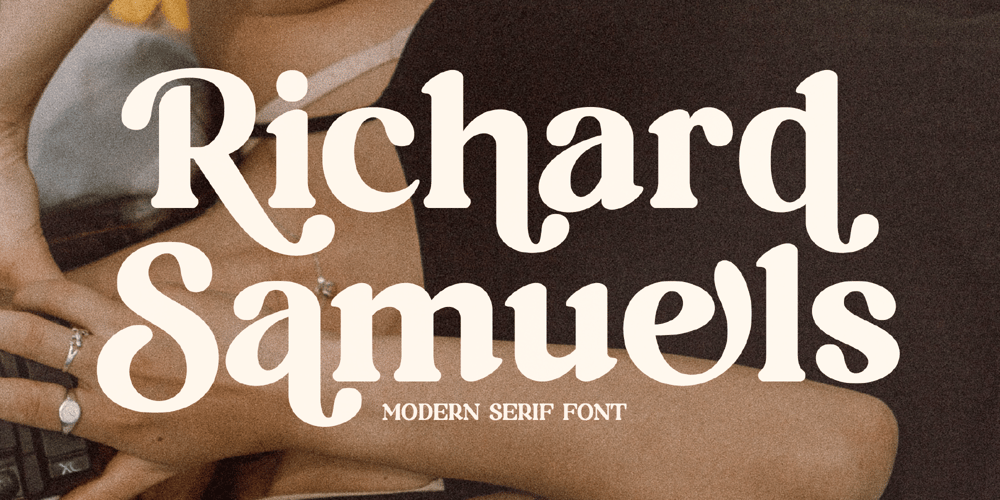
Richard Samuels Font Family was designed by Heru Utama Putra and published by Letterena Studios. Richard Samuels contains 2 styles and family package options. A serif modern and classic typeface that his own unique style & modern look.This typeface is perfect for an elegant & luxury logo, book or movie title design, fashion brand, magazine, clothes, lettering, quotes, and so much more.